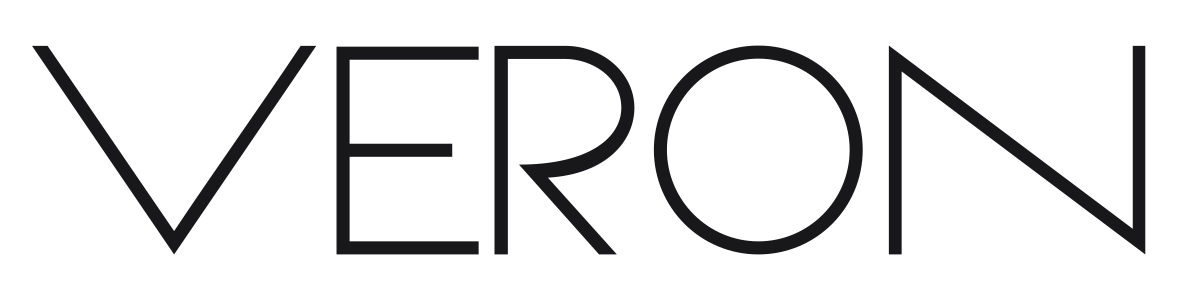
Veron
by skomii
Veron is a thin, uppercase geometric display face from skomii with an elegant minimalist sensibility. Its light strokes and clean construction give each letterform a refined, airy quality that works best at larger sizes where the delicate geometry can speak for itself. A strong option for fashion-forward branding, editorial headlines, and modern identity work that calls for restraint over visual weight.